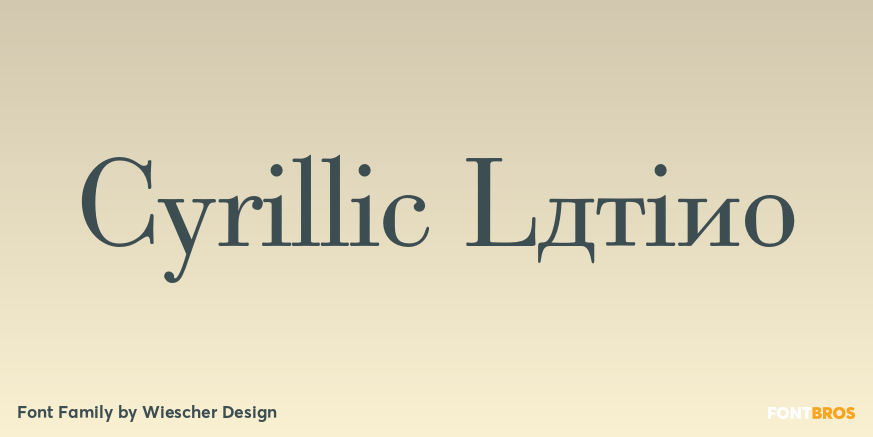
Cyrillic Latino
About Cyrillic Latino
Cyrillic Latino is a combination of the cyrillic and latin version of my Bodoni-Classic-Text typefaces. The typeface comes in very handy if you want text to look Russian but can be read by everyone. Since it is a combination of two of my typefaces I…